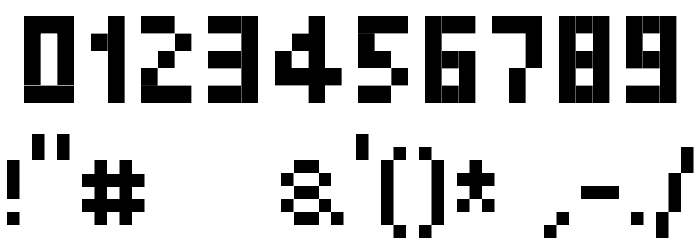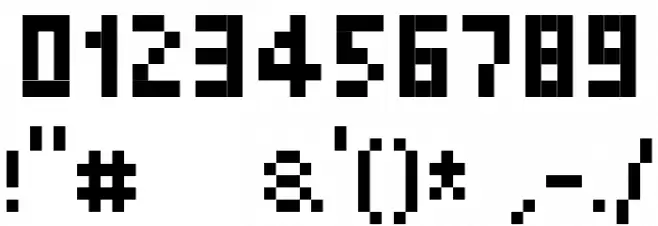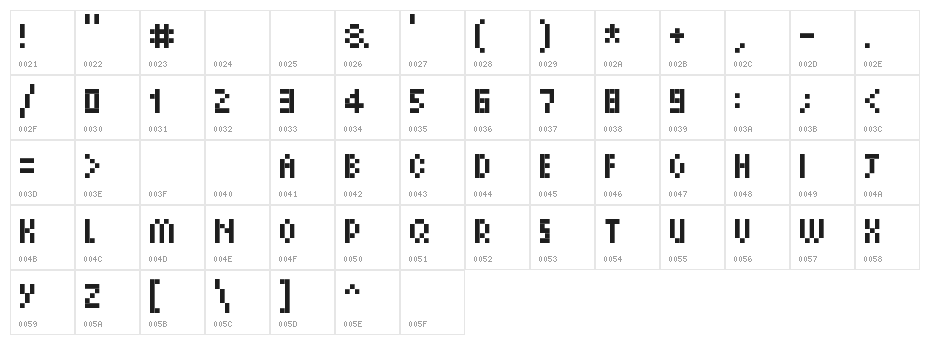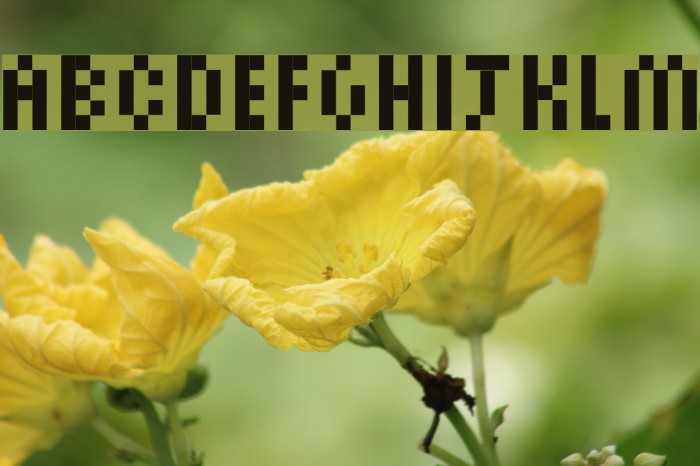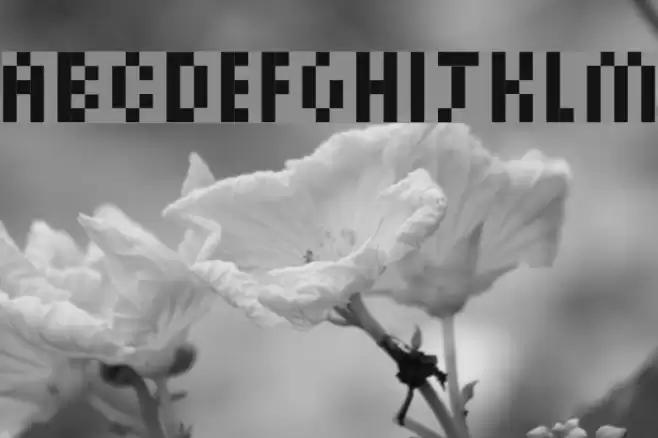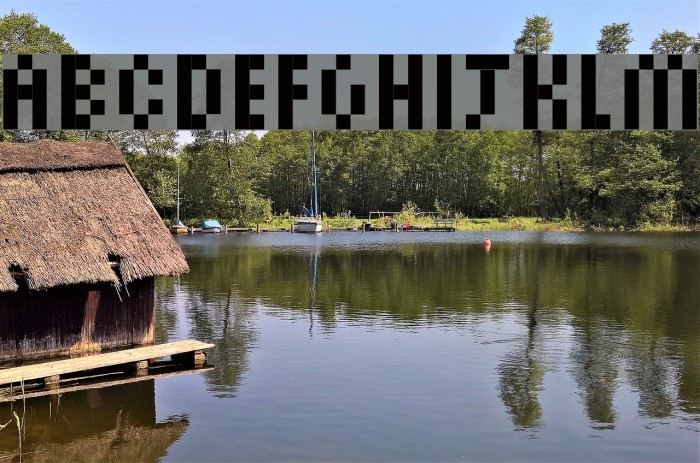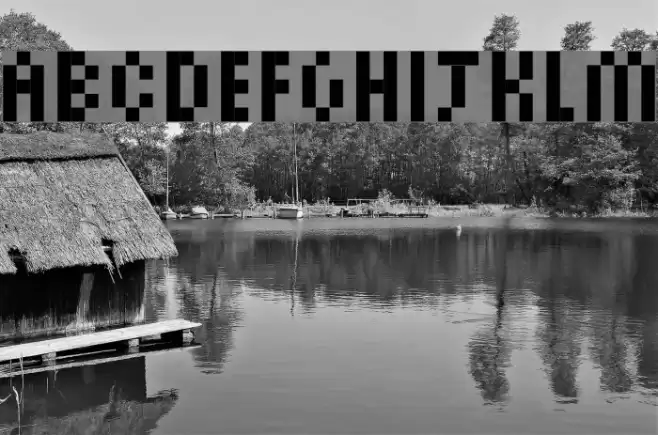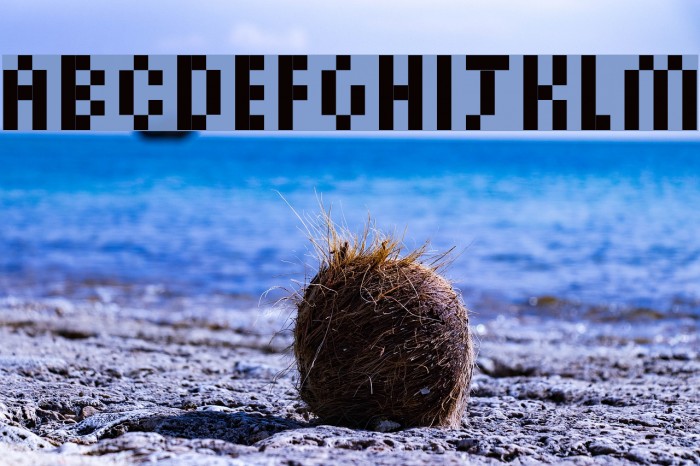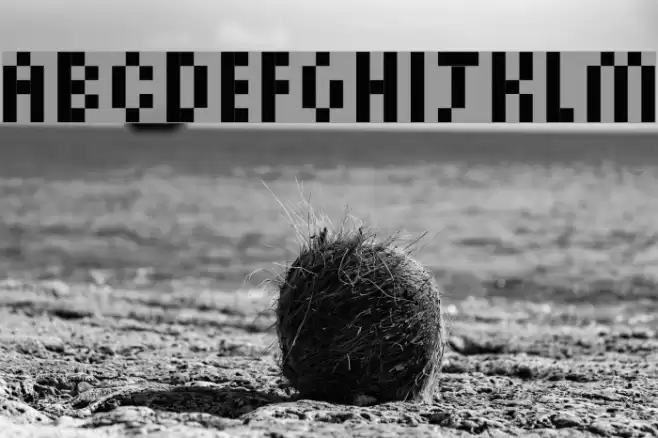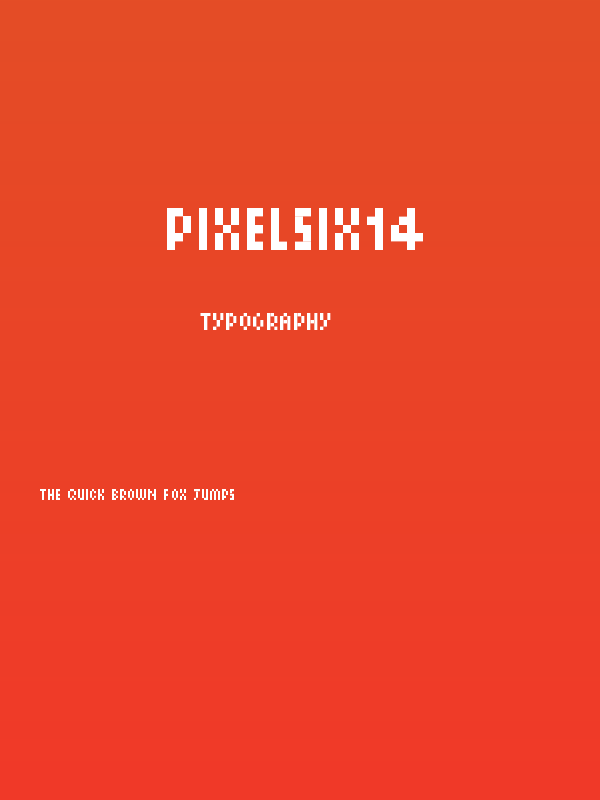
PixelSix14 Font
PixelSix14 Description
This font features a bold, pixelated design that evokes a retro, digital aesthetic reminiscent of early computer graphics and video games. Each character is constructed with a grid-like structure, giving it a blocky and geometric appearance. The uppercase and lowercase letters maintain a consistent height, enhancing the uniformity and simplicity of the design. The numerals and special characters follow the same pixelated style, ensuring a cohesive look across all glyphs. This font's distinct style makes it ideal for projects that require a nostalgic or tech-inspired theme.
| Overall Style | Retro, Digital |
| Proposed Projects | Ideal for video game design, retro-themed posters, digital art, and tech-related branding. |